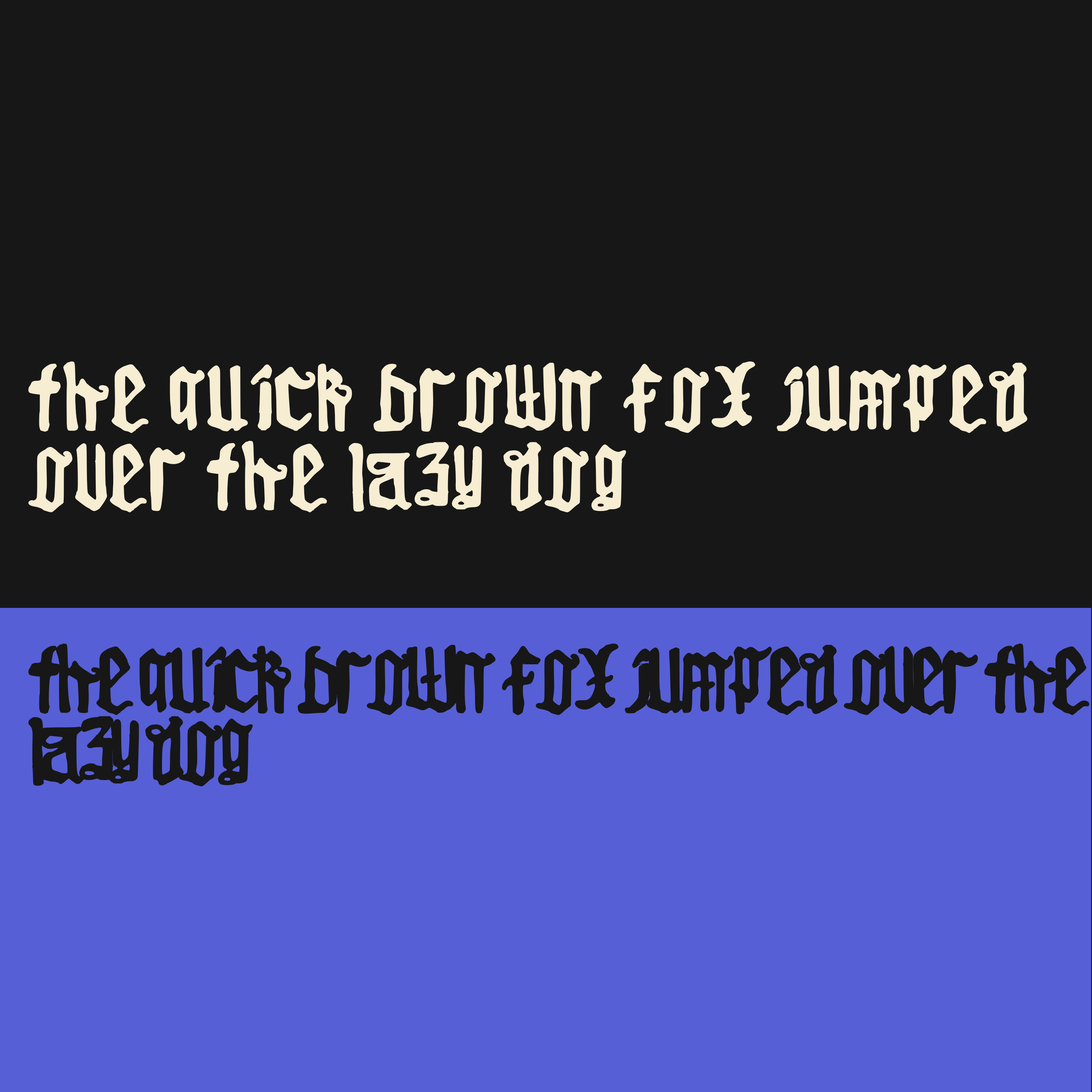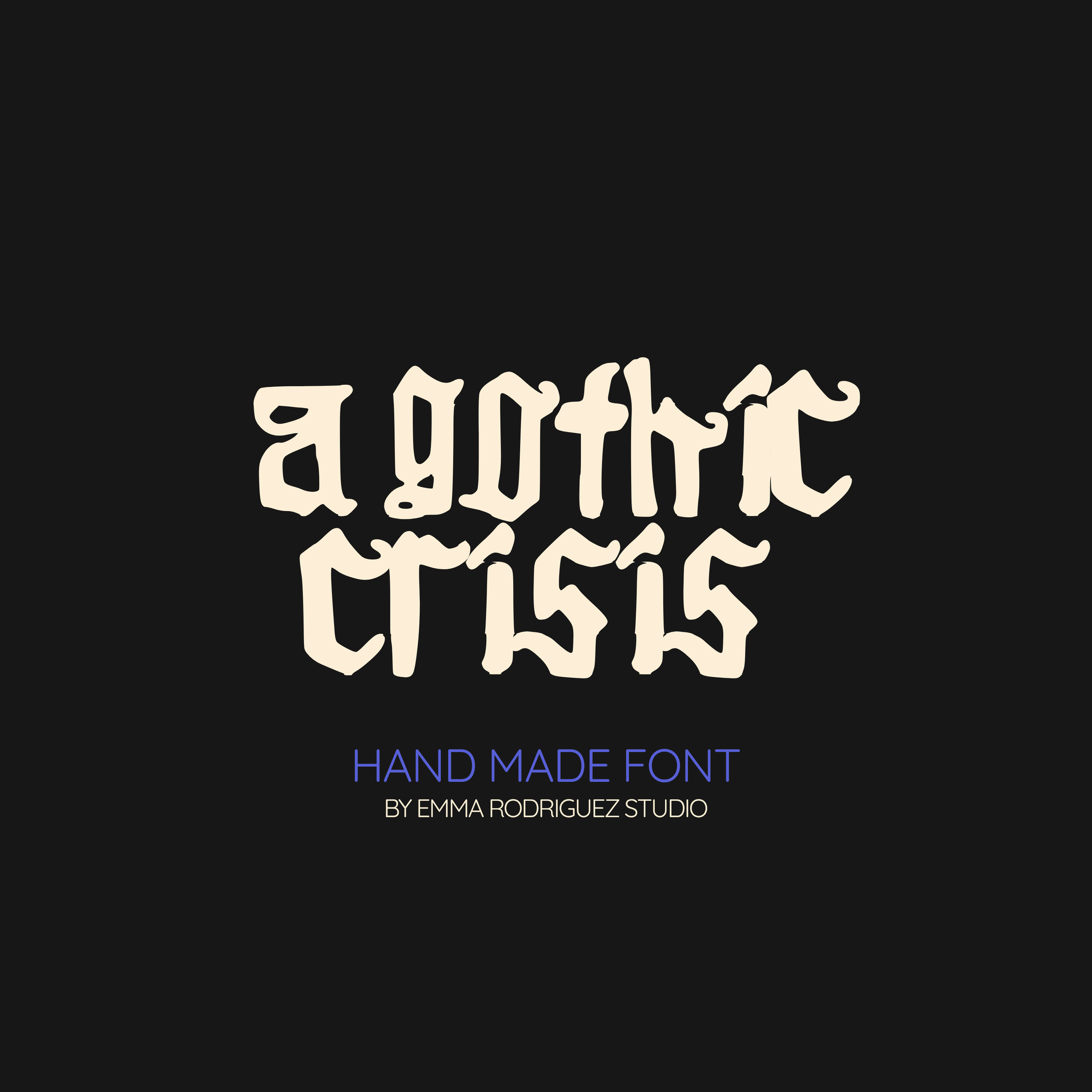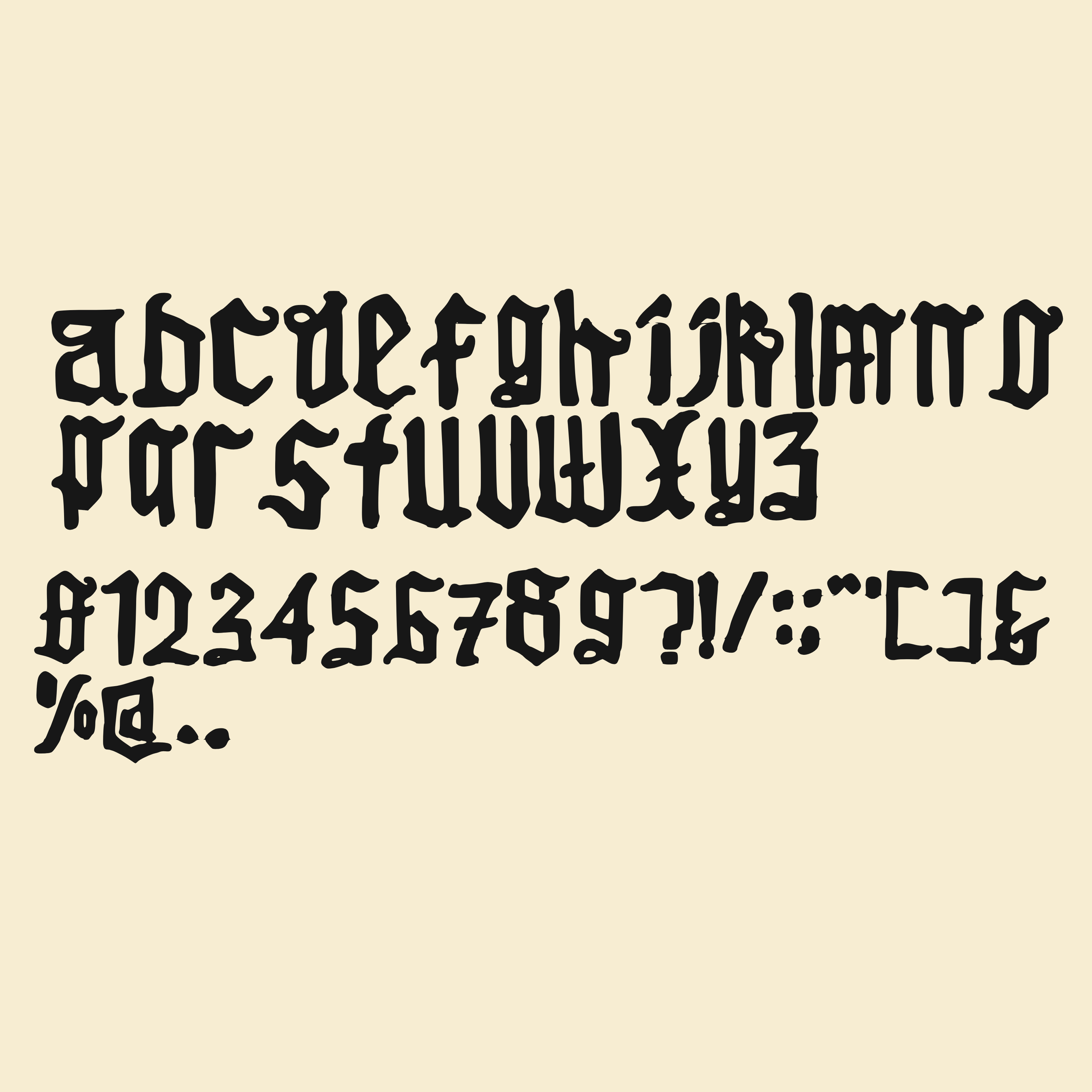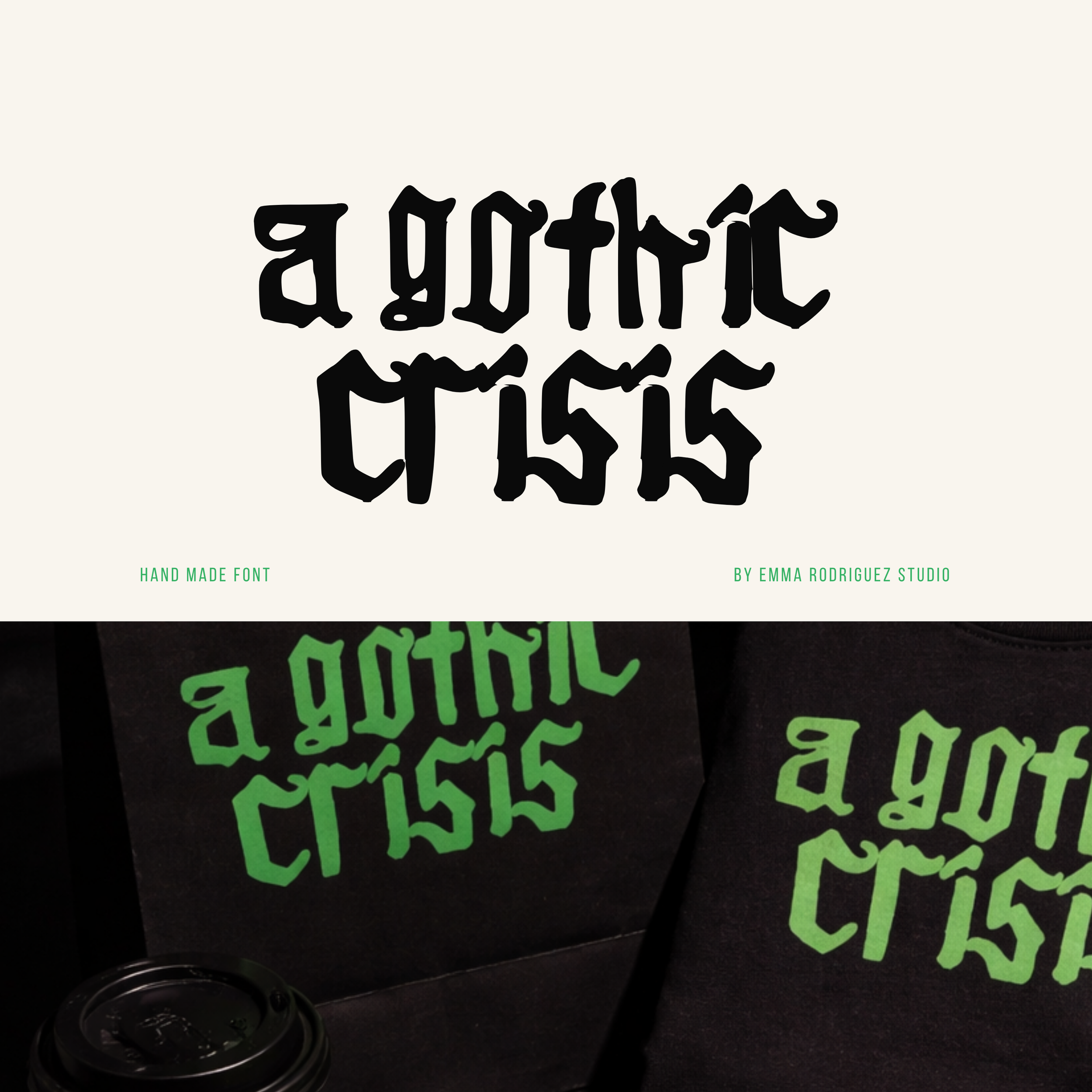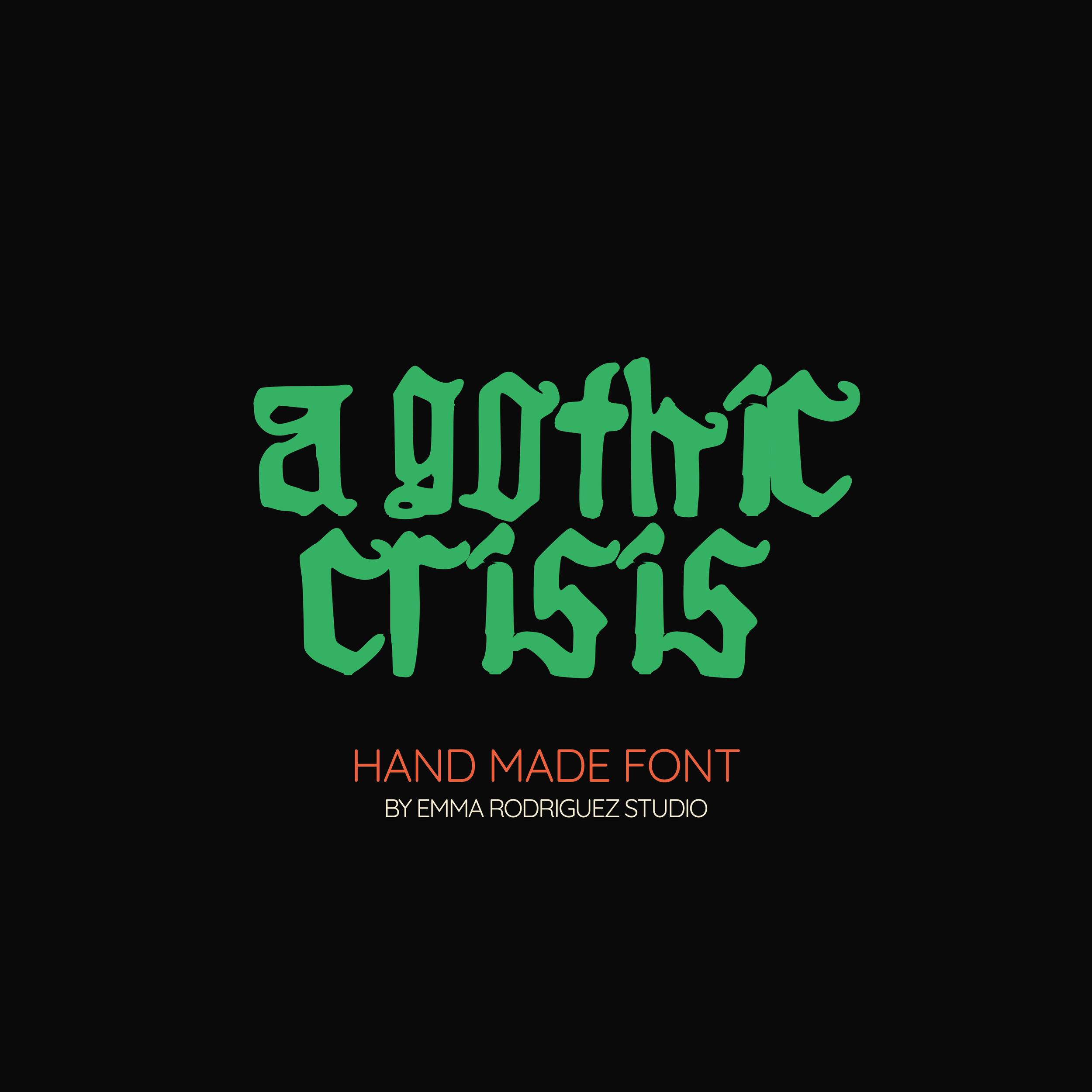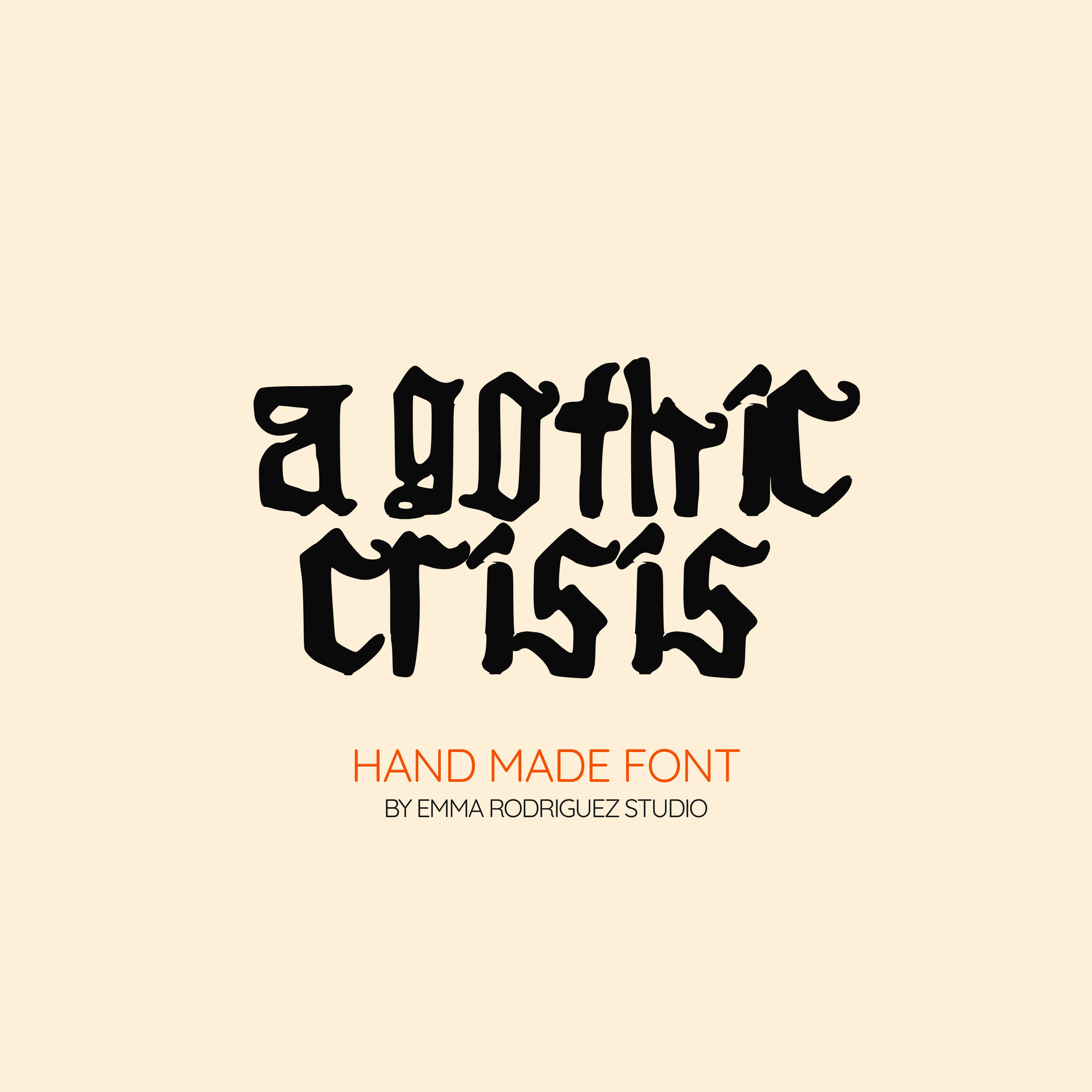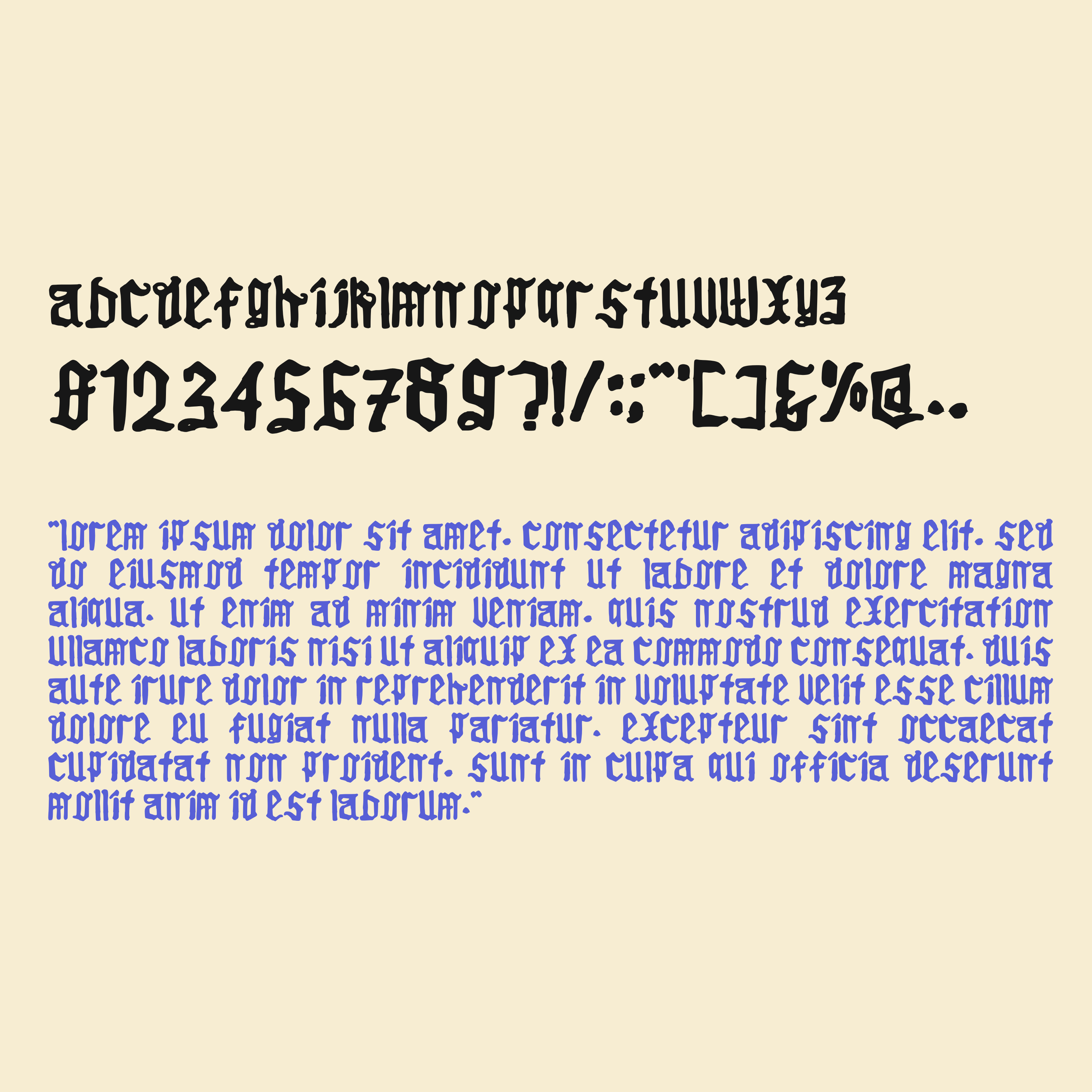
A Gothic Crisis Font - Inky Blackletter Quirky Type
Meet ‘A Gothic Crisis’, a messy, distorted take on traditional gothic lettering.
It pulls from classic blackletter forms but twists them into something rougher, looser, and a bit unhinged. The sharp structure is still there, but it’s been pushed off balance with uneven strokes, warped curves, and slightly chaotic spacing. It feels historic, but not precious.
This is the kind of font that keeps the attitude of gothic type without the rigidity. It works well for bold branding, alternative merch, posters, album artwork, or anything that leans darker but still wants personality.
If traditional gothic feels too polished or predictable, this is what happens when it loosens up and stops behaving.
• All lowercase letters
• Numbers and basic punctuation
Note: The unaligned baseline and uneven positioning are intentional design choices to create a more playful, organic feel.
Use it for:
• Edgy branding
• Music artwork
• Bold posters
• Zines
• Statement quotes
• Sticker designs
• Streetwear graphics
• Digital planners with attitude